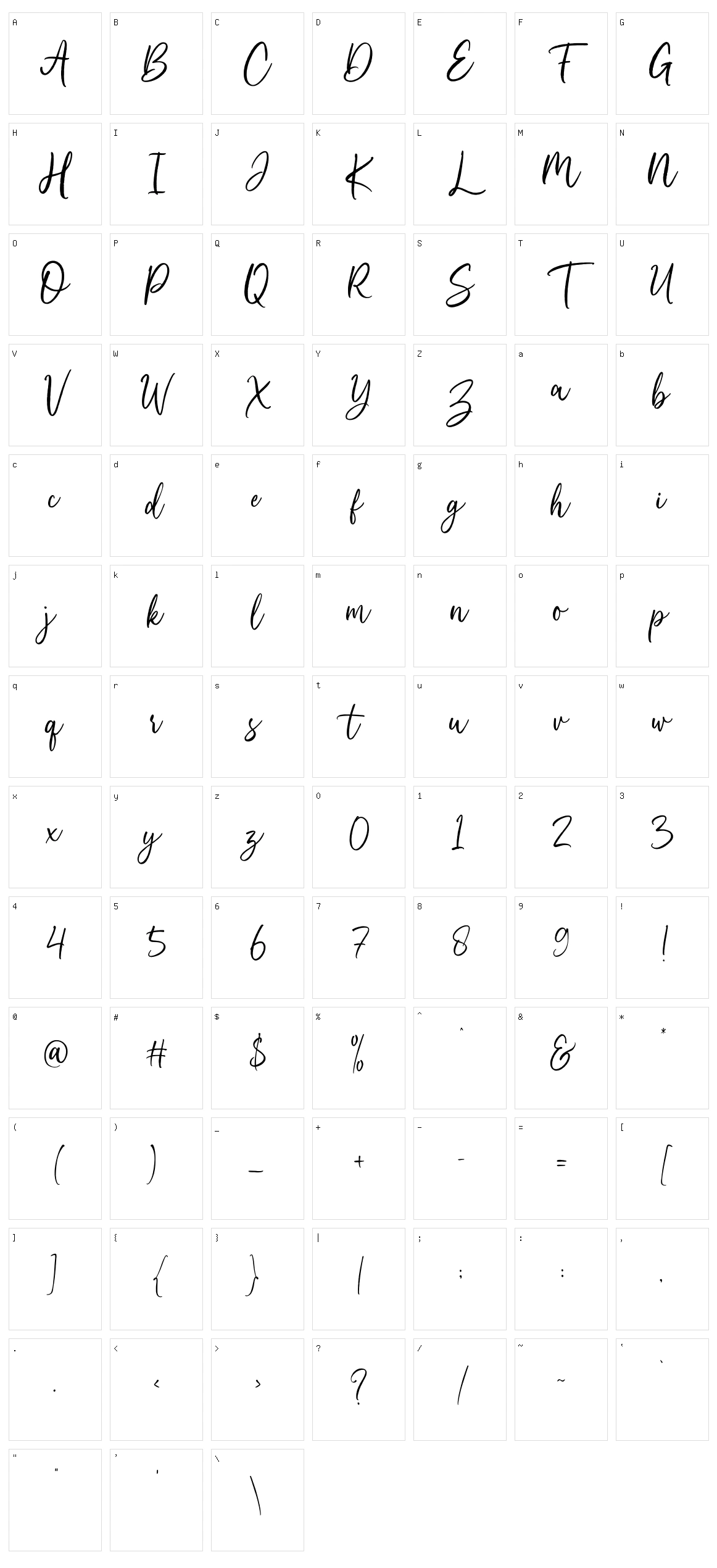
The free font Breathing Fresh is carefully designed by Sizimon.id, showcasing a thoughtful balance of creativity and usability and falls under the Script font style. When you download the ZIP file, it contains only 522.08 KB of font files, making it lightweight and quick to download. Please review the license details below to understand permitted usage and distribution rights. If license information is not available, we recommend using this font for personal projects only or contacting the author directly for commercial usage permissions.